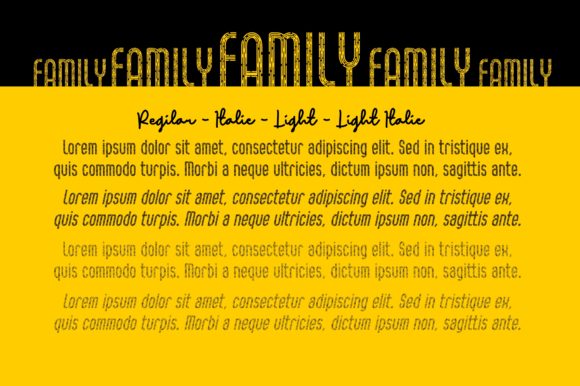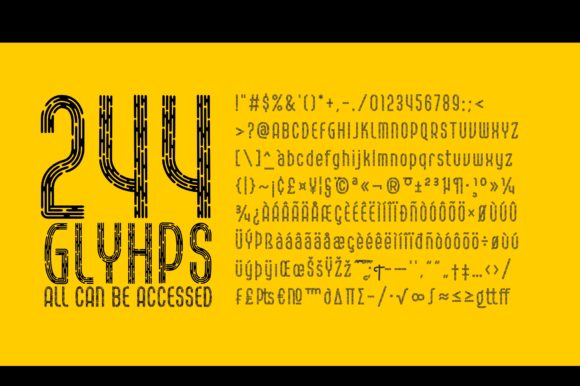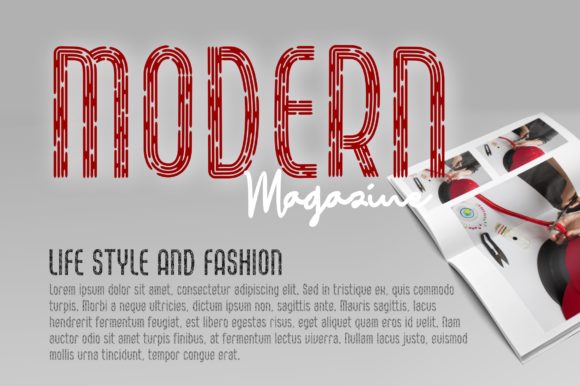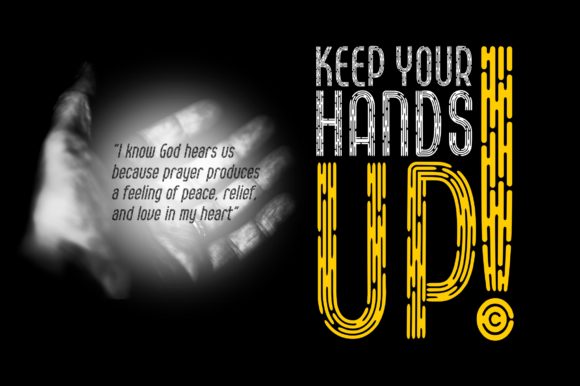
Unleash Your Creativity with the Unique Gerush Font
Have you ever stared at a blank canvas, waiting for inspiration to strike? We’ve all been there – the blank page staring back, taunting us to create something amazing. But what if we told you that the key to unlocking your creativity lies in the smallest of details? Enter the Gerush Font, a genuine display font that’s as unique as your fingerprint.
This cleverly crafted font is designed to add a touch of formality to your projects, while also making a lasting impression. With its distinct fingerprint design, the Gerush Font is perfect for designers looking to add a personal touch to their work. Whether you’re working on a logo, a poster, or a business card, this font is sure to elevate your design and leave a lasting impression.
Gerush Font Key Features
- Font Family: Gerush Font is a unique, hand-drawn sans-serif font designed to evoke a sense of nostalgia and elegance.
- Unique Characteristics: Gerush Font features a distinctive, hand-drawn style with subtle imperfections and variations in line width, giving it a unique and organic feel.
Gerush Font Review
First off, I’d like to say that I’m impressed with the unique aesthetic of Gerush Font. ✨ The font’s blend of clean lines and decorative elements creates a distinctive visual identity that’s sure to stand out. The font’s weight, in particular, feels well-balanced, allowing for clear readability even at smaller sizes.
Another aspect that works well for Gerush Font is its versatility. ✨ It can be used for a wide range of applications, from digital interfaces to print materials, and its adaptability to different contexts is commendable. Additionally, the font’s open-source nature makes it accessible to designers and developers worldwide.
- ⚠️ Limited character set: Gerush Font has a relatively small character set, which might be a concern for designers working on projects that require a wide range of characters (e.g., Cyrillic, Greek, etc.).
- ⚠️ Lack of italic and bold styles: While the font’s weight is well-balanced, it would be beneficial to have more style variations, such as italics and bolds, to further enhance its expressiveness.
Overall, Gerush Font is an intriguing choice for designers looking to add some personality to their projects. While it has its limitations, the font’s unique aesthetic and versatility make it worth considering for the right project.
Gerush Font is ideal for creating unique and stylish designs for branding, advertising, and editorial projects. Tips for getting the most out of it include:
- Use it in combination with bold or italic styles to add emphasis.
- Experiment with different font sizes and colors to create visual interest.
- Use it in conjunction with other fonts to create a unique typographic style.